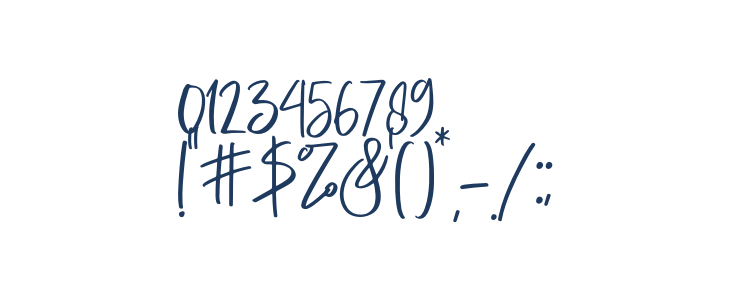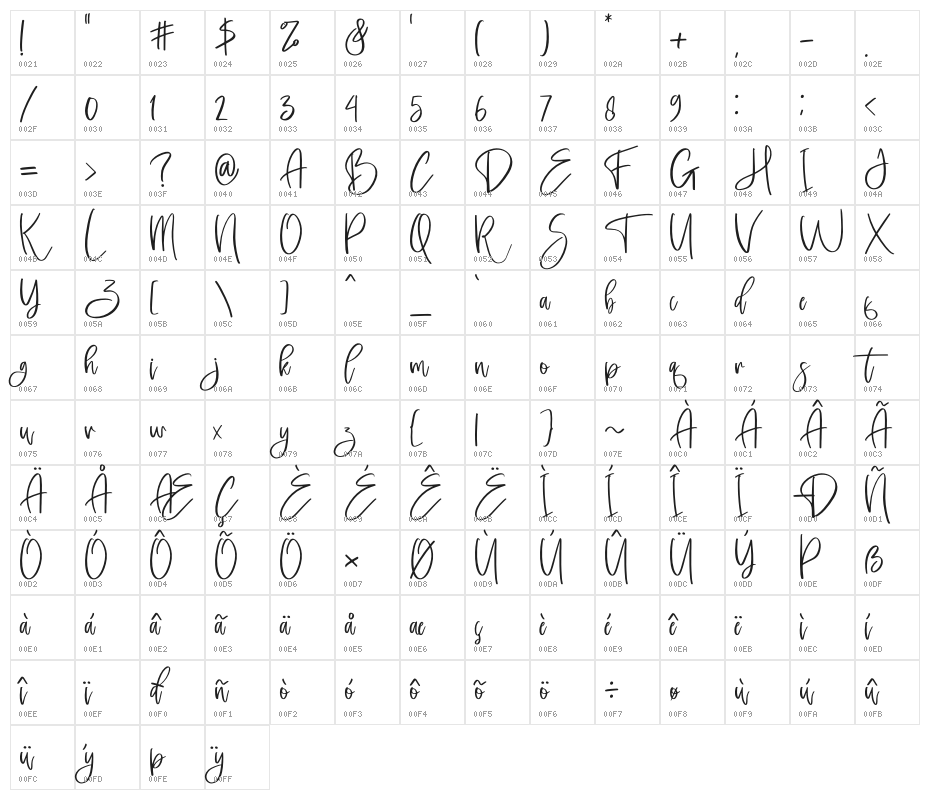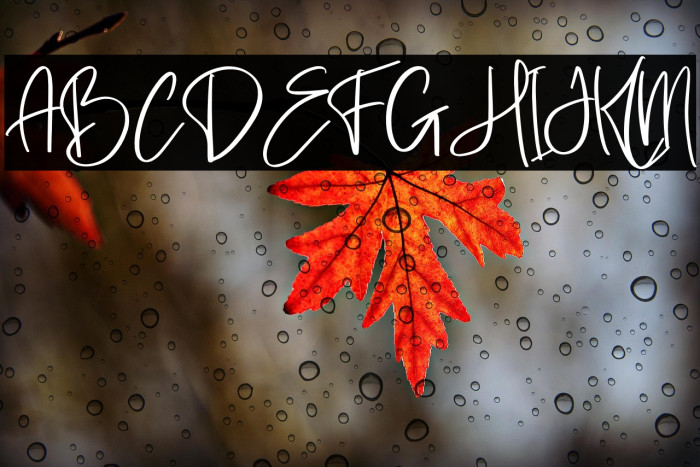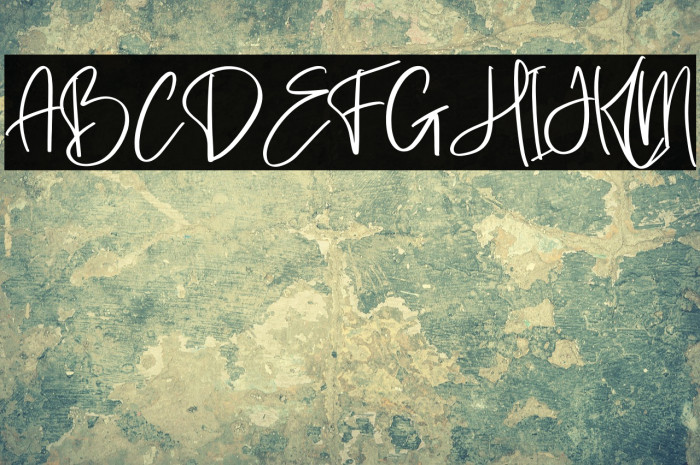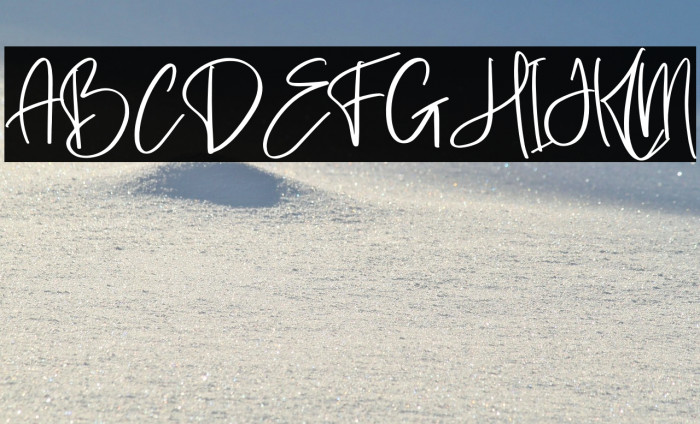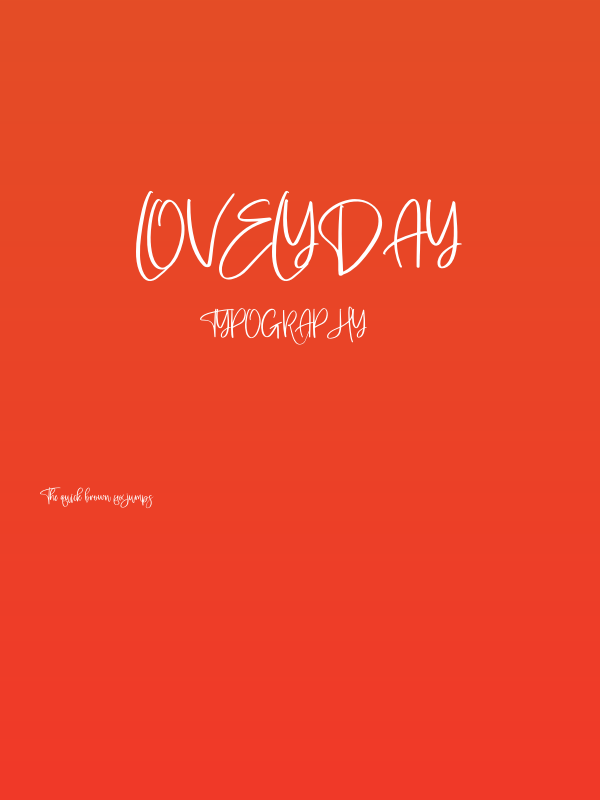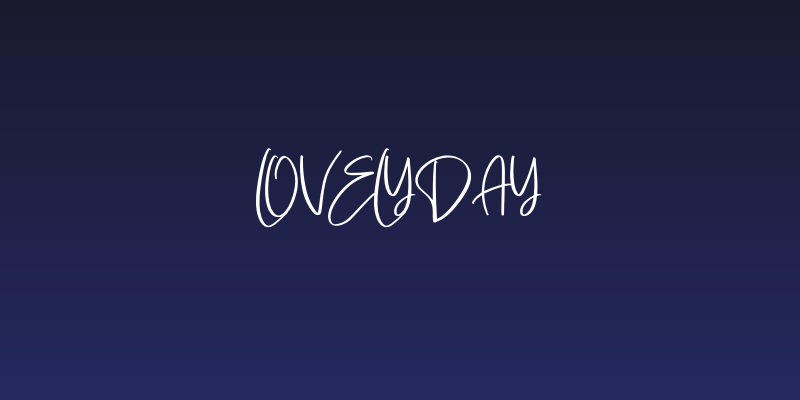
lovelyday Font
lovelyday Description
This font features a playful and energetic handwritten style, characterized by its flowing, cursive letters. The uppercase letters are tall and slightly slanted, giving a sense of movement and dynamism. The lowercase letters are more compact, with loops and swirls that add a whimsical touch. The numbers and special characters maintain the same lively aesthetic, ensuring consistency across all elements. The strokes vary in thickness, providing a medium contrast that enhances readability while maintaining an artistic flair. This font is ideal for projects that require a personal and creative touch.
| Proposed Projects | Greeting cards, invitations, personal branding, social media graphics, and creative posters. |